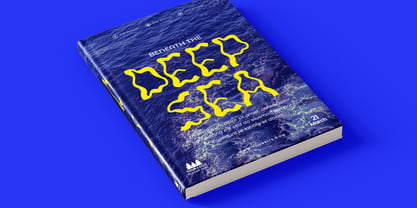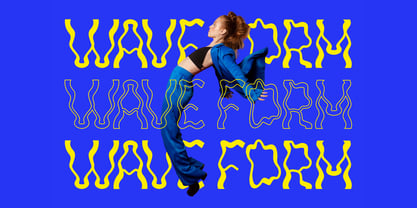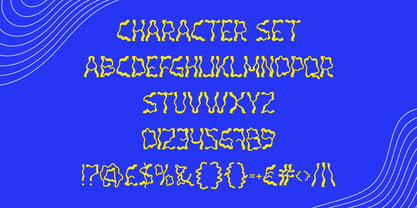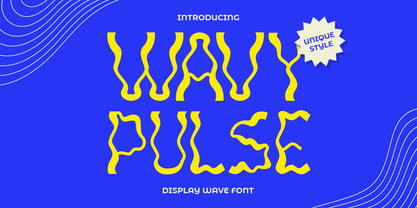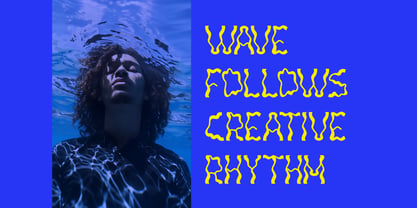
Wavy Pulse
by Shanaf
The Wavy Pulse Font Family was designed by Yesie Erma Yunita and published by Shanaf. Wavy Pulse contains 1 styles. More about this family
Wavy Pulse is a bold and vibrant display font that captures the hypnotic essence of wave motion. Each letter is uniquely crafted with fluid, curving forms that mimic the natural undulation of water. The characters are wide, wavy, and eye-catching, perfect for injecting energy and movement into modern designs. Set against a deep oceanic blue, its sunny yellow tones create an impactful contrast that pops on both digital and print media. This font evokes a sense of rhythm and psychedelic vibrancy—ideal for designers who want to stand out with a futuristic, dynamic typographic identity.
Whether you’re working on posters, branding, music covers, or fashion-forward packaging, Wavy Pulse elevates the visual experience with a liquid-like texture. The glyph set includes full uppercase A–Z, numerals, and special characters, offering excellent flexibility for headlines, display titles, and creative compositions. It pairs seamlessly with energetic visuals, beach or music festival themes, and bold marketing campaigns. Wavy Pulse isn’t just a font—it’s a visual wave that rides with your imagination.
Designers: Yesie Erma Yunita
Foundry: Shanaf